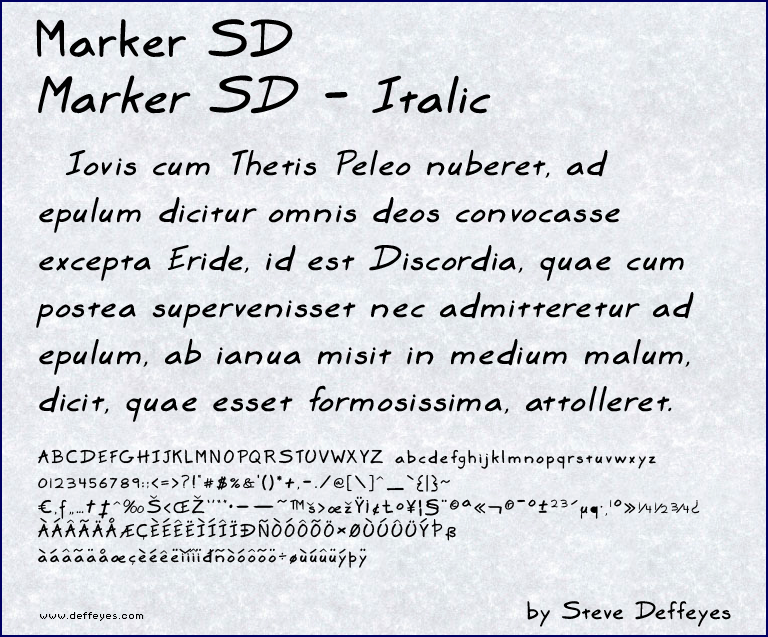
Preview and download Marker SD Font. Created by Steve Deffeyes in Script Handwritten styles with 100% Free license.
Font name: | Marker SD |
Author: | Steve Deffeyes |
Note by Steve Deffeyes | |
My handwriting, in a -very- idealized form! Newly updated Aug-2009, with a full character set and an italic version. |